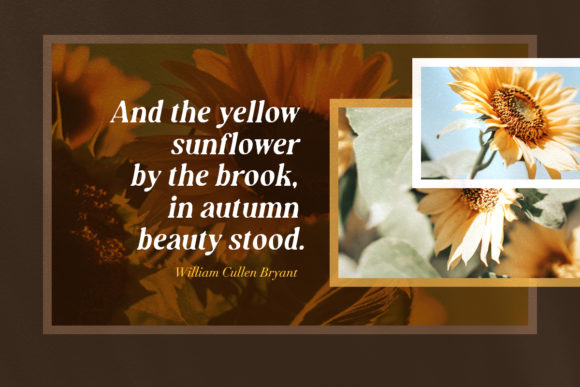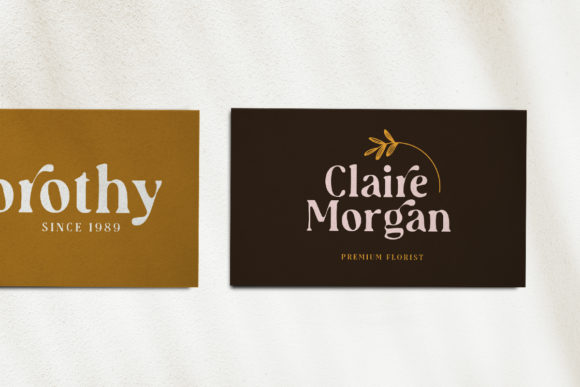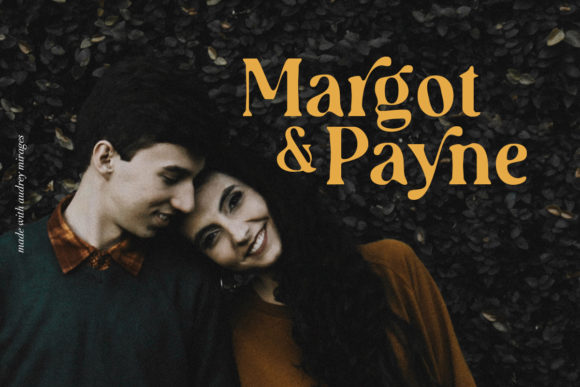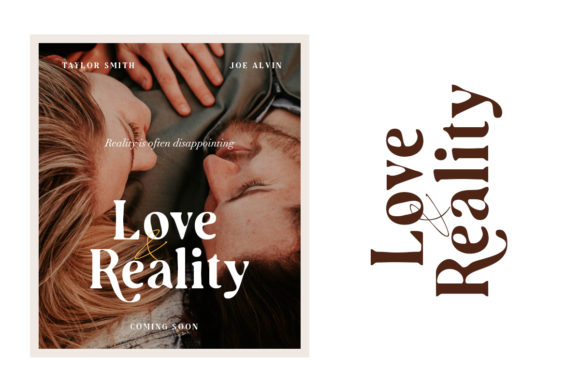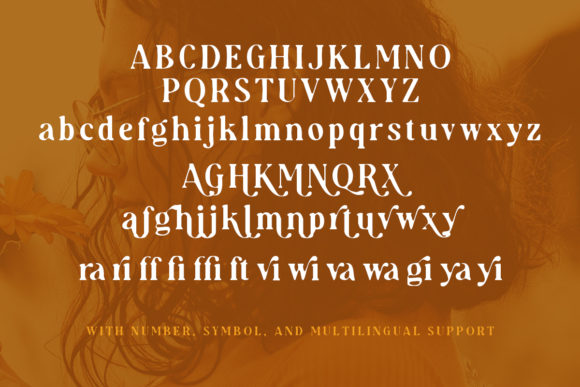
Unlocking Timeless Elegance: The Audrey Mirages Font
Have you ever been stuck on a design project, struggling to find the perfect font to bring your vision to life? You spend hours browsing through countless options, only to end up with something that feels…just okay. But what if I told you there’s a font that can elevate your designs and make them truly unforgettable?
Meet the Audrey Mirages Font, a sophisticated and refined serif font that’s perfect for adding a touch of sophistication to your creative projects. Whether you’re designing a wedding invitation, a corporate brochure, or a fashion magazine, Audrey Mirages Font is the perfect companion to help you create something truly special. Its elegant lines and precise typography make it a valuable asset for designers looking to add a level of refinement to their work.
Audrey Mirages Font Key Features
- Font Family: Audrey Mirages
- Unique Characteristics: This font features a dreamy, ethereal quality with intricate details and subtle texture, making it ideal for creative projects, art, and design.
Audrey Mirages Font Review
Overall, I think the Audrey Mirages font has a lot of potential, but it’s not without its quirks. Here are some things that I think work well: ✨
- The font has a unique, dreamy quality that’s perfect for creative projects.
- The font is highly legible, even at smaller sizes, making it great for body text.
- The font includes a wide range of weights and styles, giving designers a lot of flexibility.
However, there are a few limitations to be aware of: ⚠️
- The font can be a bit too ornate for some projects, which may make it difficult to read.
- The font lacks a true italic style, which may be a problem for designers who need to emphasize certain text.
- The font may not be the best choice for projects that require a lot of bold text, as the bold weight can be a bit too dramatic.
Overall, I think the Audrey Mirages font is a great choice for designers who want to add a touch of whimsy to their projects. However, it’s not a good fit for every project, and designers should be aware of its limitations before using it.
Tips for Getting the Most Out of the Audrey Mirages Font
Use the Audrey Mirages Font for creative and elegant designs, such as wedding invitations, art prints, or branding materials. Experiment with different font sizes, colors, and styles to achieve a unique look.
The Audrey Mirages Font is suitable for a wide range of designs, including:
– Art prints and posters
– Branding materials and logos
– Book covers and booklets
– Digital and print advertising
Alternatives to Audrey Mirages Font
Great Vibes is a modern, elegant script font that is perfect for creating a sophisticated and stylish look. It is ideal for use in branding, advertising, and editorial design. Great Vibes has a similar cursive feel to Audrey Mirages Font, but with a more refined and polished appearance.
Pacifico is a beautiful, handwritten font that is great for creating a relaxed and beachy vibe. It is perfect for use in design projects that require a casual, laid-back feel. Pacifico has a similar organic feel to Audrey Mirages Font, but with a more rounded and softer appearance.
Carolyna Pro is a high-end, elegant script font that is perfect for creating a luxurious and sophisticated look. It is ideal for use in branding, advertising, and editorial design. Carolyna Pro has a similar refined and polished appearance to Audrey Mirages Font, but with a more intricate and ornate design.